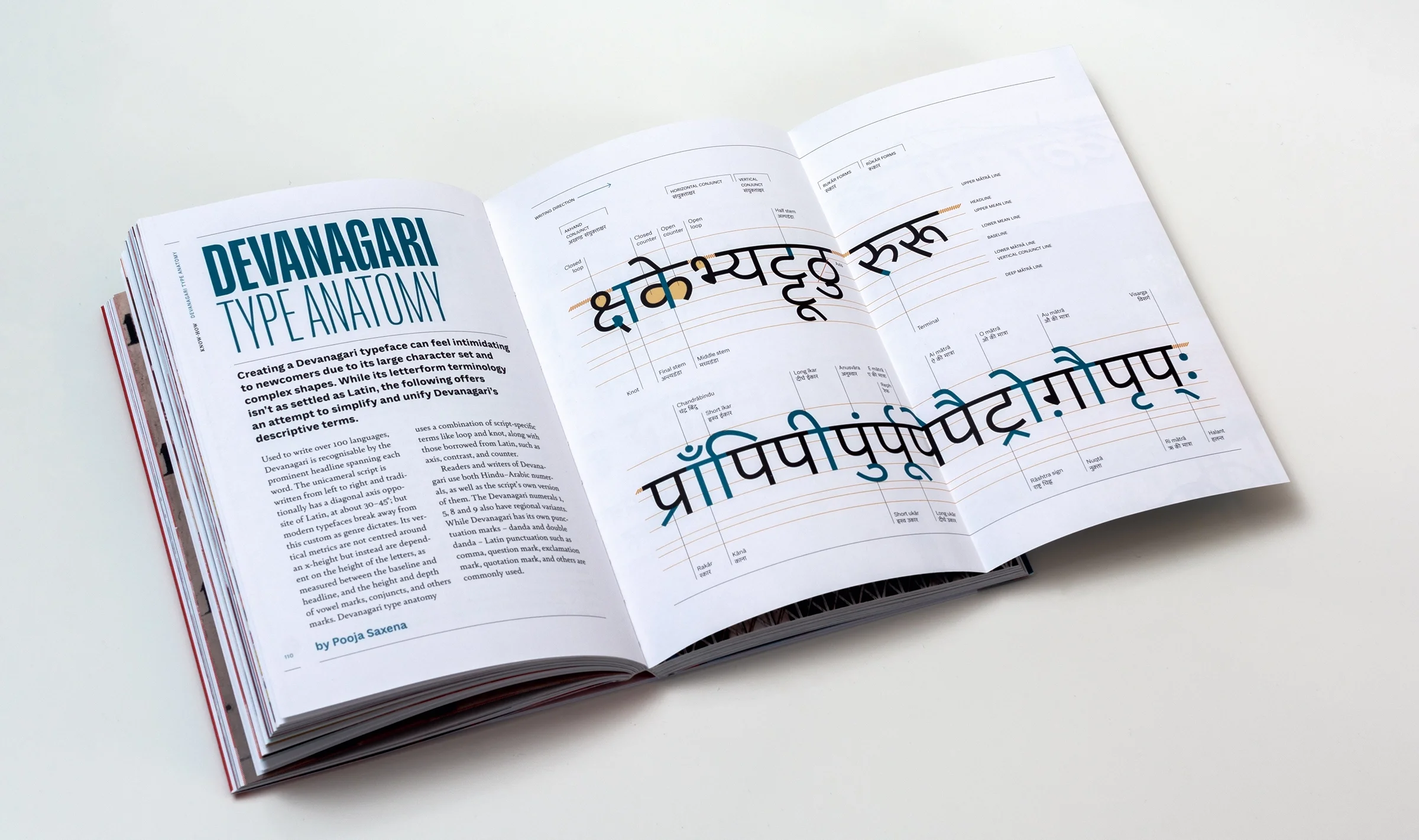
India Street Lettering (2013–ongoing)
India Street Lettering is an online archive of the shared typographic culture that thrives in the country’s urban spaces. Built over a decade, this ongoing effort is focused on meticulously documenting, annotating and geo-tagging public lettering made by analog means from around India. This archive informs and deepens my understanding of Indian typographic cultures and design in local scripts, and has been the driving force behind type walks, zines, workshops and lectures. India Street Lettering has been featured in Creative Boom, Kottke, It’s Nice That, Better Letters magazine and Casual Archivist, among others.
In 2023, I was awarded the B•LORE Grant by the Bangalore International Centre to complete a short film — called Letter by Letter — about the street lettering around Bengaluru’s M.G. Road. Photographs from the India Street Lettering archive have been exhibited at Bangalore International Centre (2023), Indian Institute for Human Settlements (2024), Mahindra Sanatkada Lucknow Festival (2025) and the Institute of Mathematical Sciences (2025). Most recently, this archive became the basis of my first book, India Street Lettering: A Journey through Typographic Craft & Culture, published by Blaft Publications (2026).
Primarium (2021–2025)
Primarium is a groundbreaking educational project by TypeTogether, which studied the methods of Latin script-based handwriting instruction for primary school children in over 40 countries. I played a multifaceted role in the development of Primarium’s online research repository: project manager, co-editor and one of the lead researchers. As a researcher, my work was focused on nations in Asia and Oceania. Primarium won Gold in Digital Design for Social Change at the Indigo Design Awards (2024). The project also won Gold at the European Design Awards (2024) in recognition of its excellence in depth and breadth of information, as well as its simple presentation.
In 2025, TypeTogether published the results of the research project in the form of a book, Primarium: Handwriting Education across Cultures and Continents, which I co-edited with José Scaglione. The book reveals how local history, cultural factors, and educational reforms have shaped diverse handwriting models around the world.
This work also formed the core of an exhibition called Primarium: A Case for Cursive, held at the Hoffmitz Milken Center for Typography (2026).
Saxena Pooja, “Rereading, rewriting, rethinking: On alternative publishing perspectives,” in Alphabettes Soup: Feminist Approaches to Type, ed. Amy Papaelias (Bikini Books, 2026), 369.
Saxena, Pooja. India Street Lettering: A Journey Through Typographic Craft & Culture. Chennai: Blaft Publications, 2026.
Saxena, Pooja. “Character building: The enduring language of Indian streets” The Caravan, December 2025.
Saxena Pooja, “Indian Sign Painting: A Typeface Designer’s Take on the Craft,” Better Letters, July 17, 2025, https://bl.ag/indian-sign-painting-a-typeface-designers-take-on-the-craft/.
Saxena Pooja, “Lessons from Letters,” Purée Mag, January 12, 2025, https://pureemag.com/2025/01/12/lessons-from-letters/.
Saxena, Pooja, and Scaglione José, eds. Primarium: Handwriting Education across Cultures and Continents. TypeTogether, 2025.
Saxena, Pooja. Review of Sadak: Hand Painted Street Signs in India, by Aradhana Seth. BLAG: Better Letters Magazine, 2024.
Saxena Pooja, “Remnants of Single-Screen Cinema Signs in Delhi,” Paper Planes, March 2, 2022, https://www.joinpaperplanes.com/remnants-of-single-screen-cinema-signs-in-delhi/.
Saxena Pooja, “Devanagari Type Anatomy,” in Building Ligatures: The Power of Type, ed. Linda Kudrnovská (TypeTogether, 2022), 110. (pictured at the top of the page § Image credit: TypeTogether)
Saxena Pooja, “A Beginner’s Guide to Multiscript Typography,” in Building Ligatures: The Power of Type, ed. Linda Kudrnovská (TypeTogether, 2022), 102.